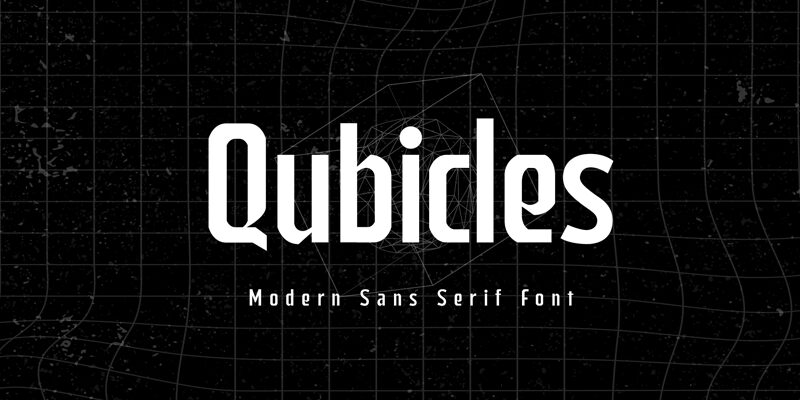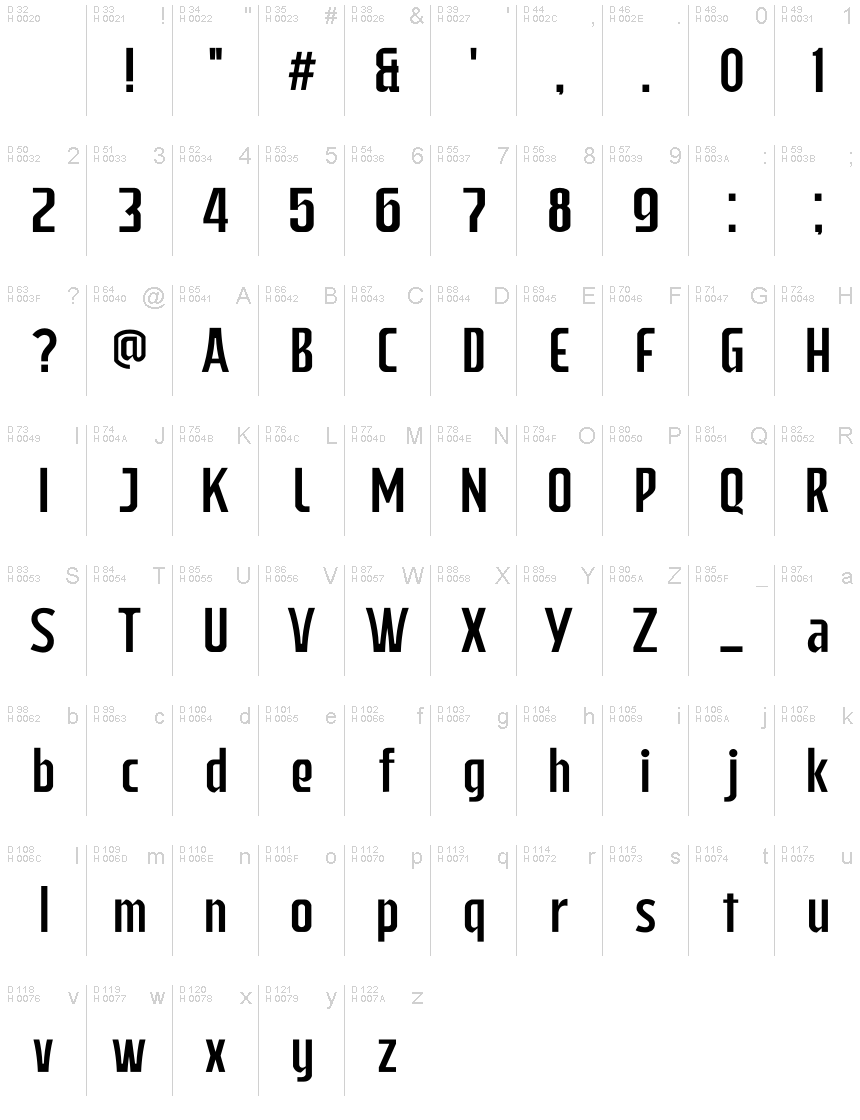
Qubicles is a captivating sans-serif font designed by Mocha Frappuccino. With its bold, condensed letterforms, this font exudes a sense of strength and confidence. The sharp, angular edges and clean lines create a striking visual impact, while the overall geometric aesthetic lends an air of modernity and sophistication.
Qubicles' versatility makes it a versatile choice for a wide range of design applications. Its condensed width allows for efficient use of space, making it an ideal selection for branding, packaging, and editorial design. The font's bold character also lends itself well to headlines, titles, and impactful display text, while its legibility ensures readability even in smaller sizes.